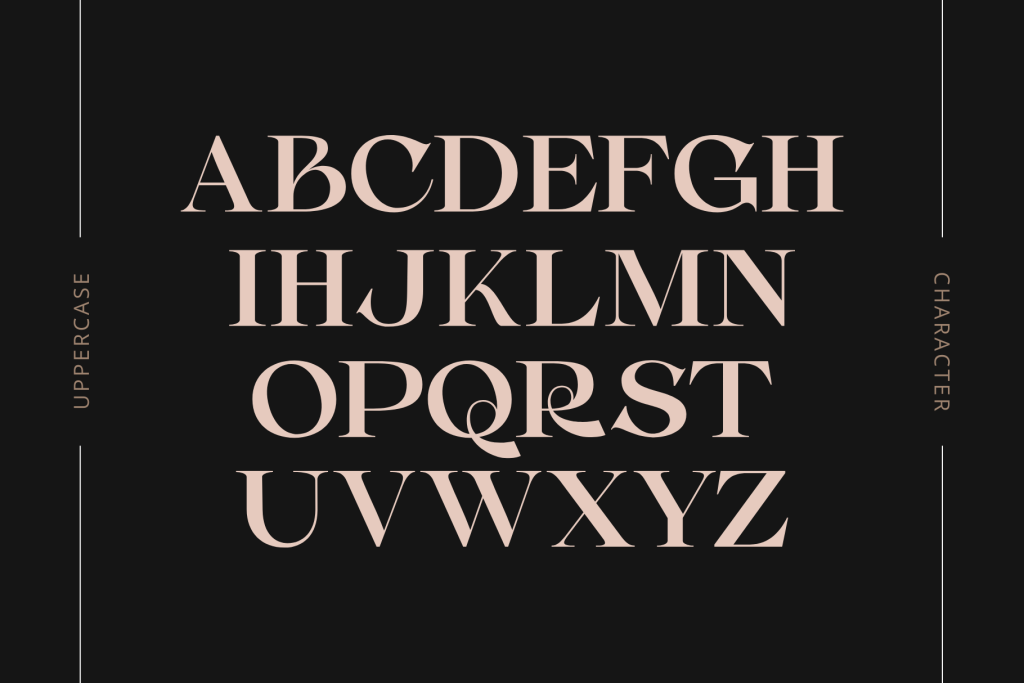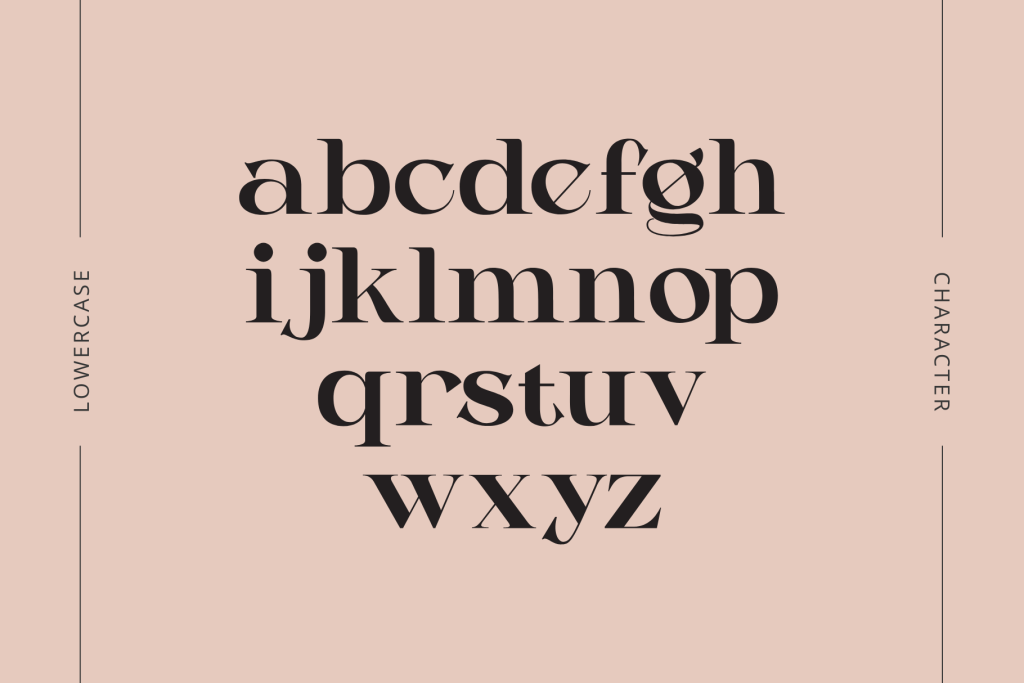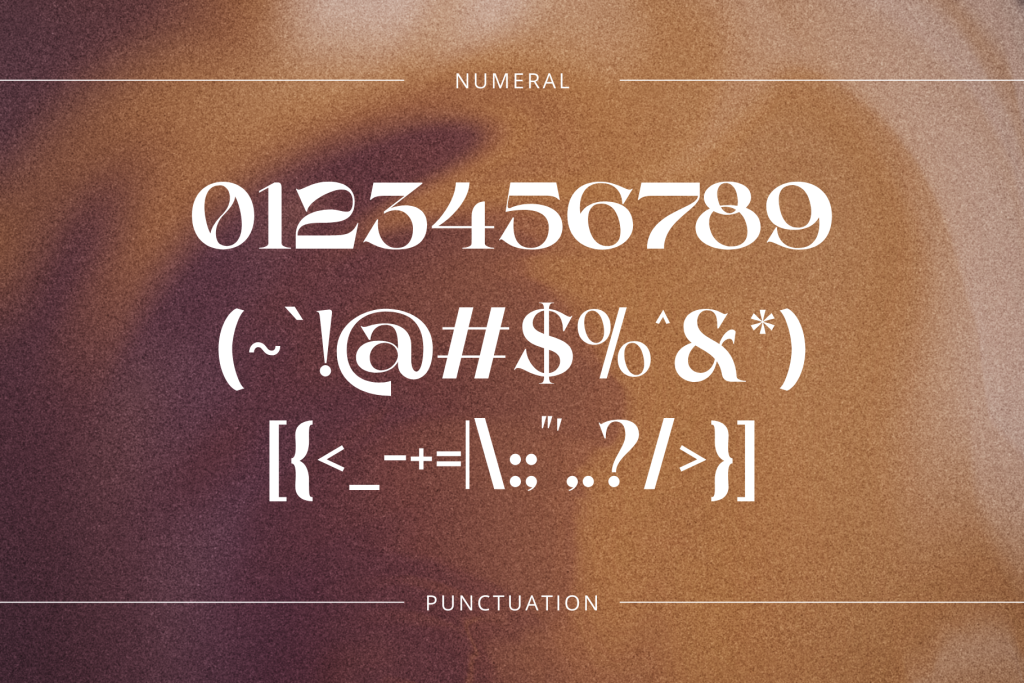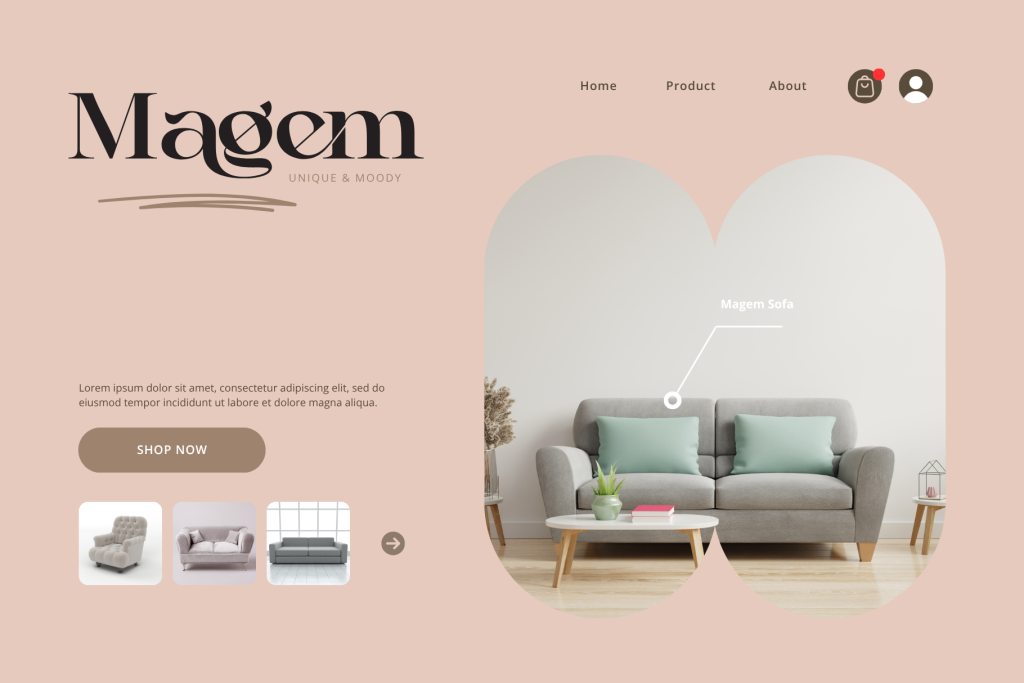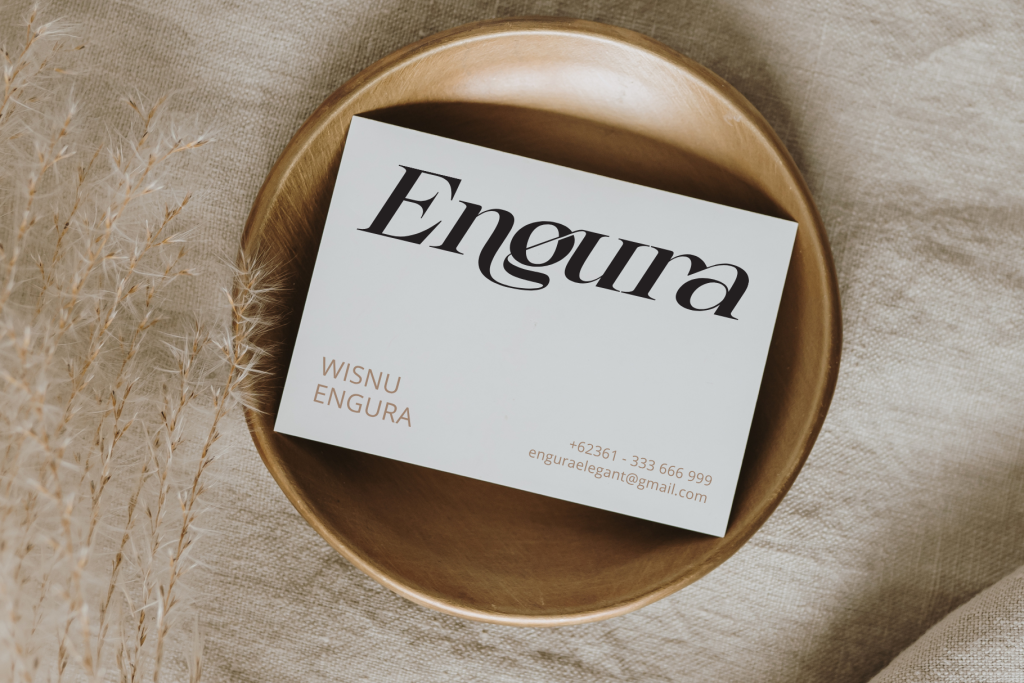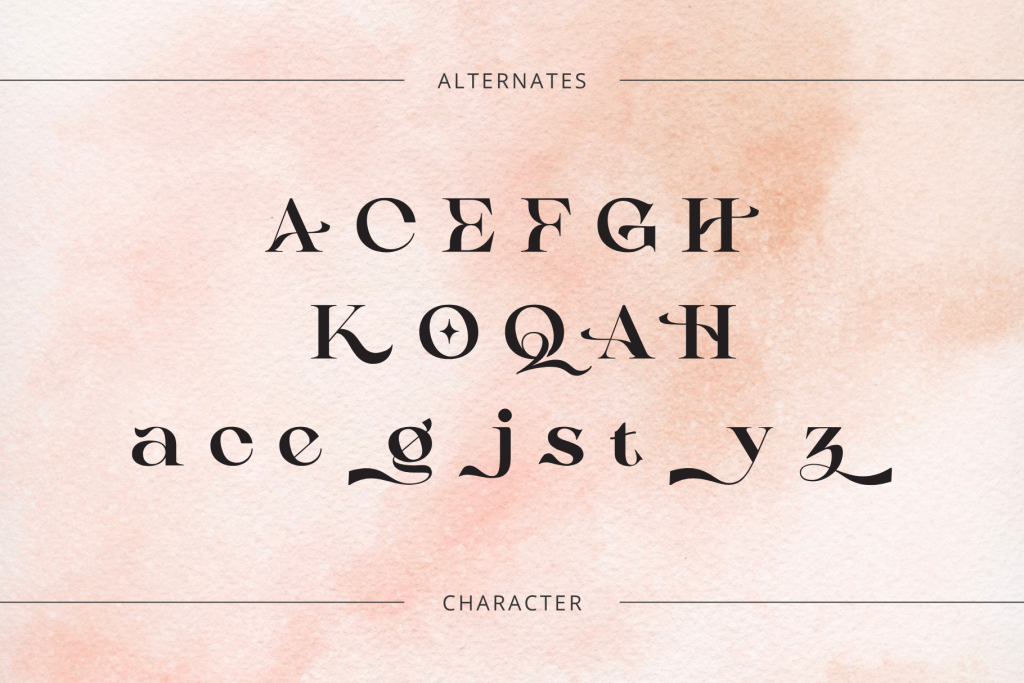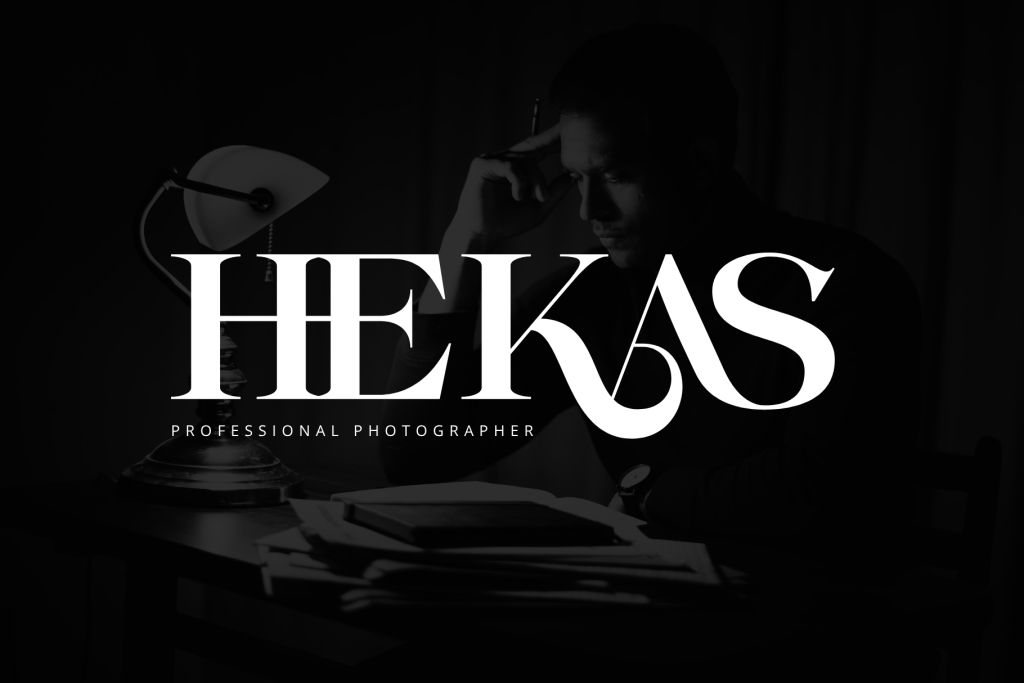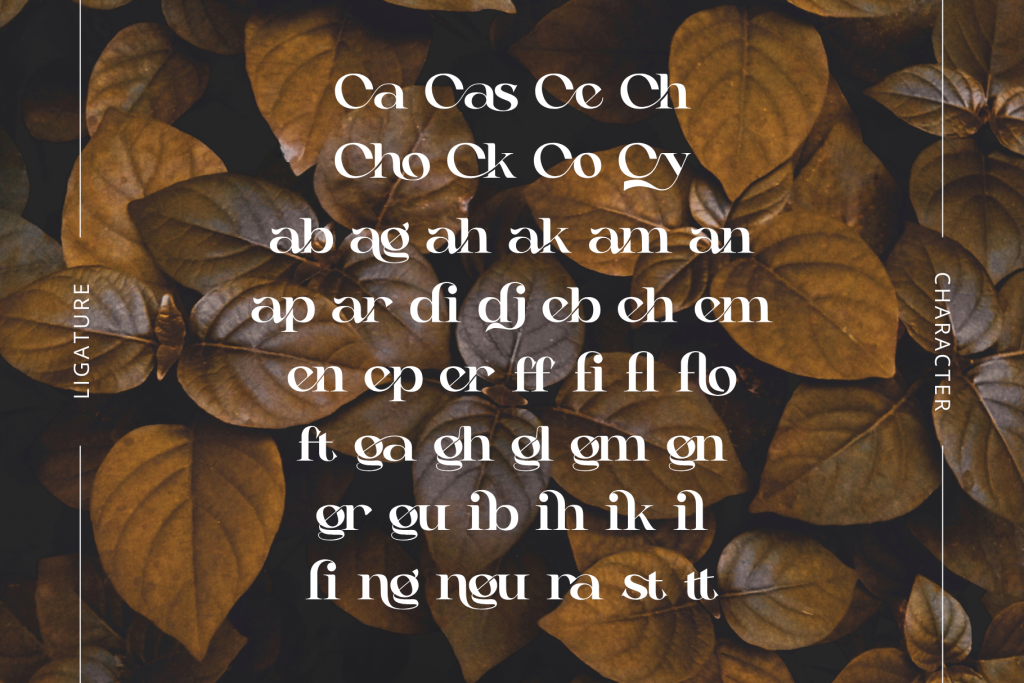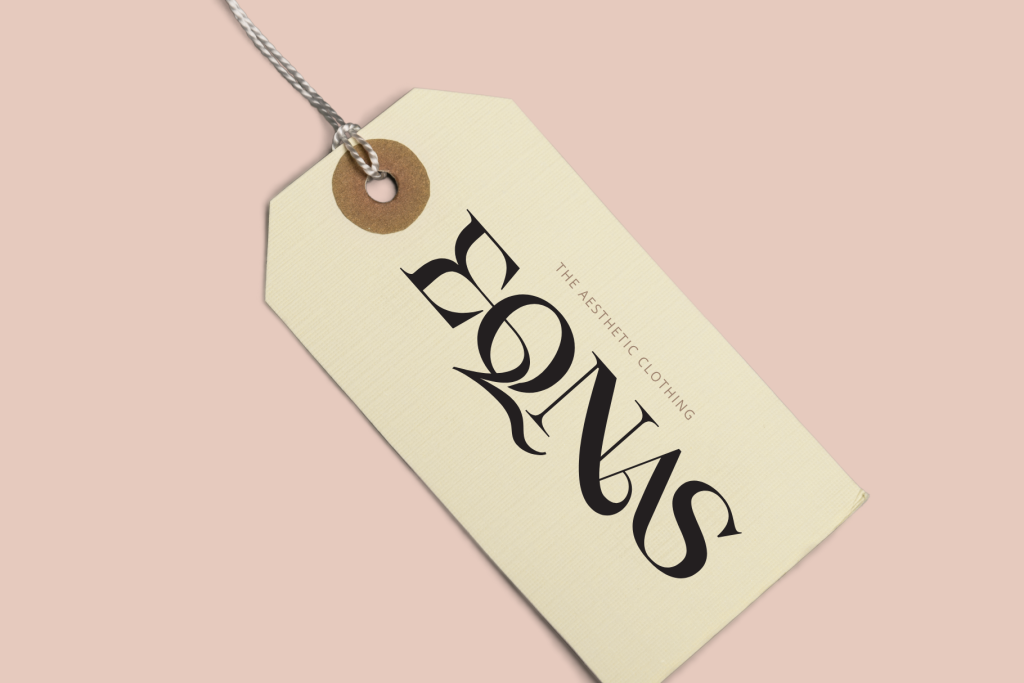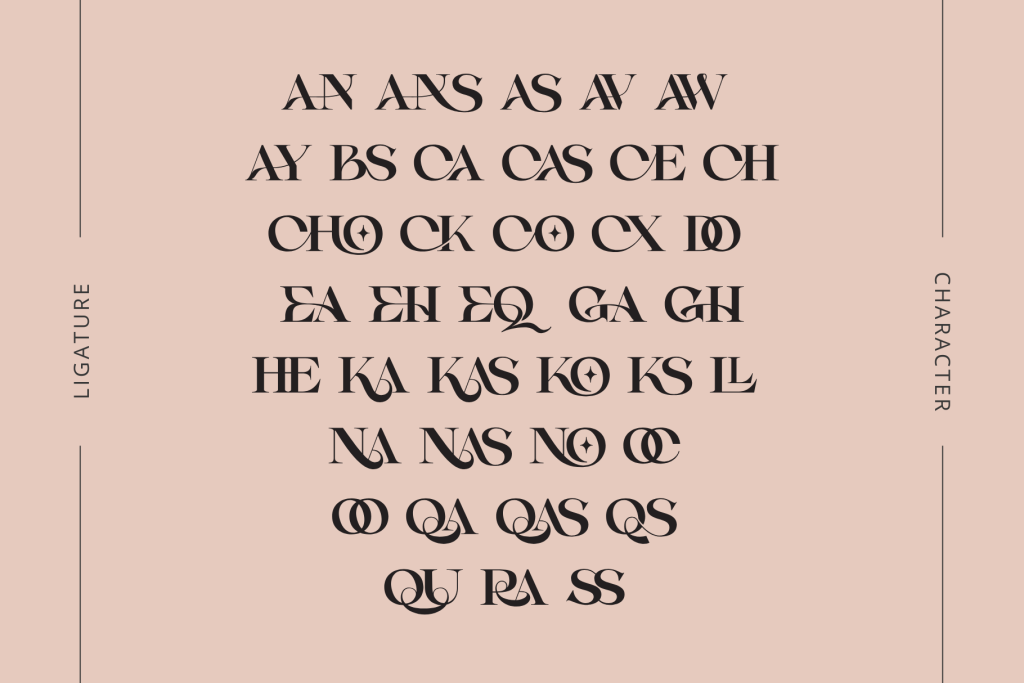
Casko is a modern luxury logo font that exudes sophistication and style. With sleek lines and balanced proportions, it blends timeless elegance with contemporary design. Available in both Regular and Italic styles, Casko is perfect for premium branding, fashion labels, and high-end packaging. Its refined curves and minimalist form offer a distinctive identity, making every design feel exclusive and luxurious.